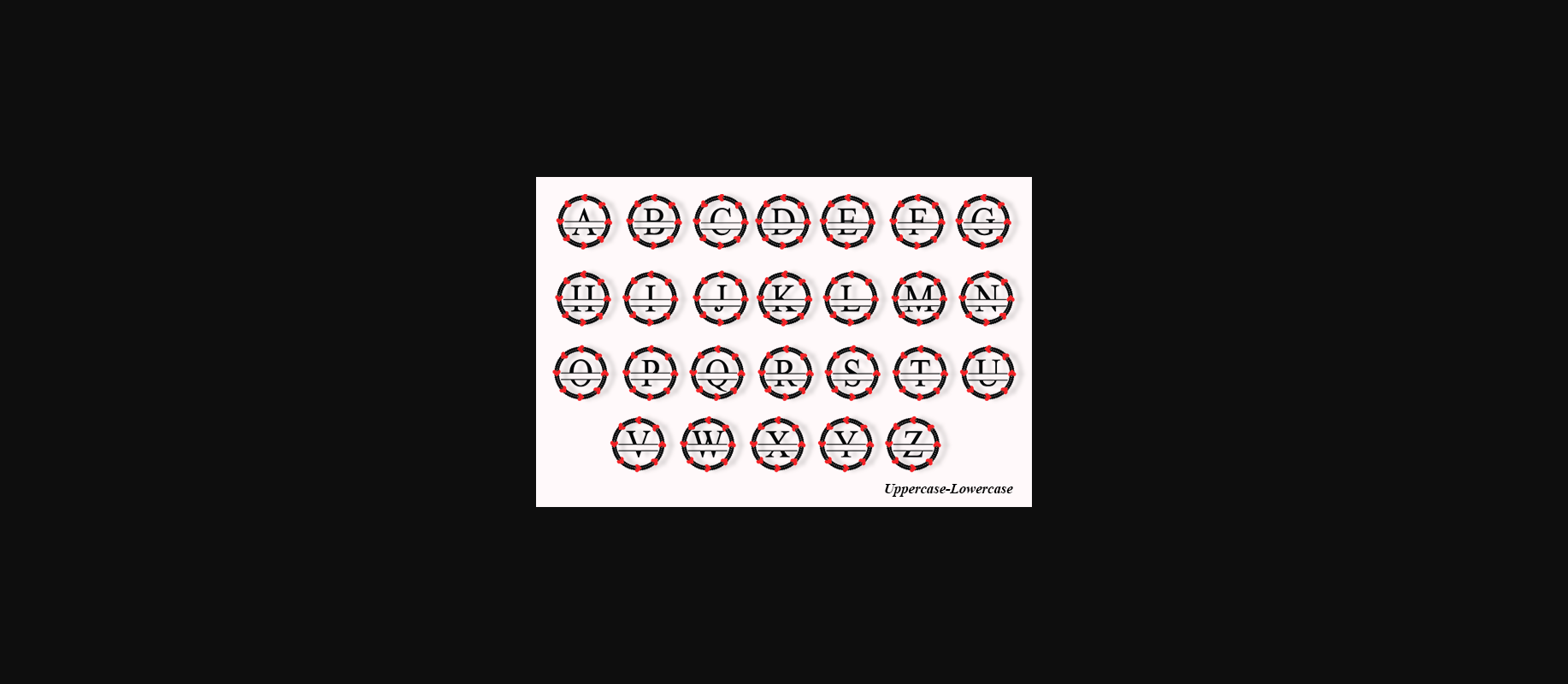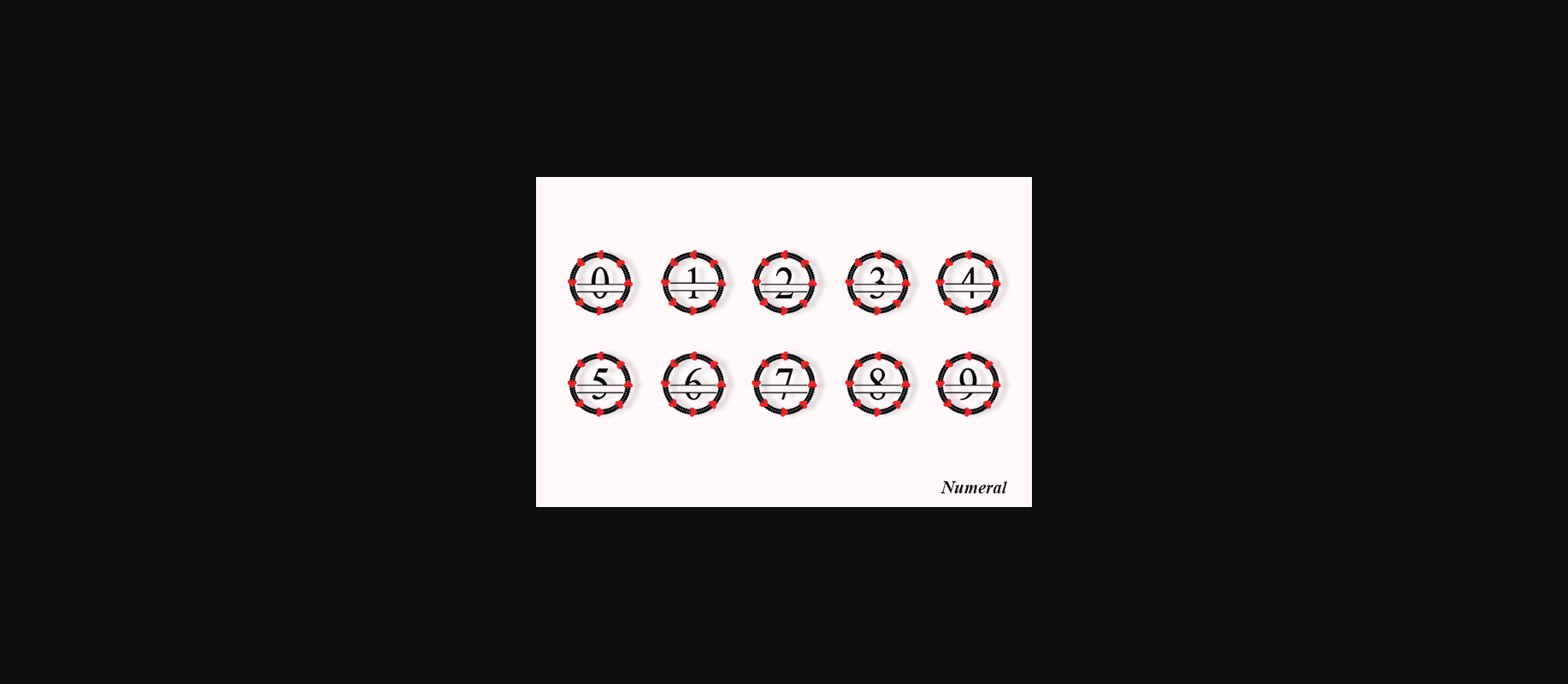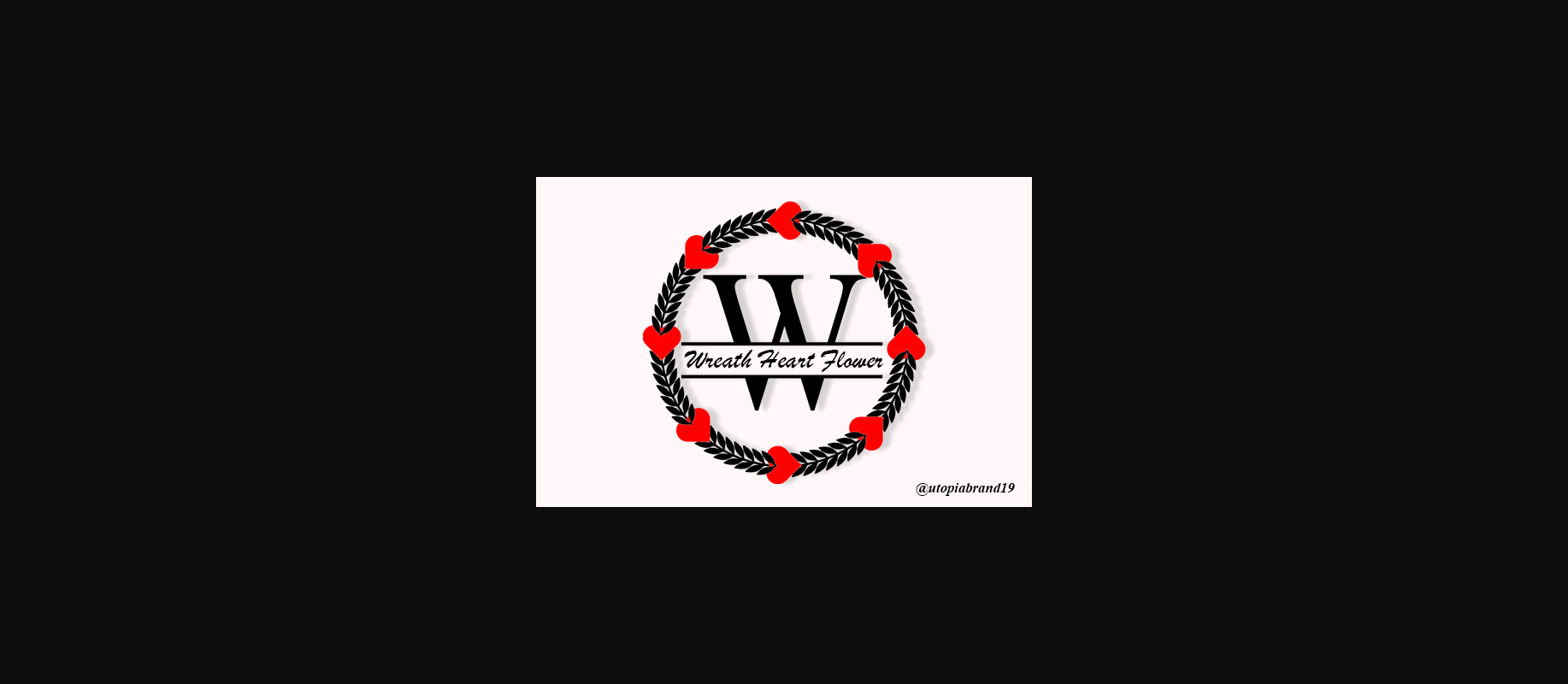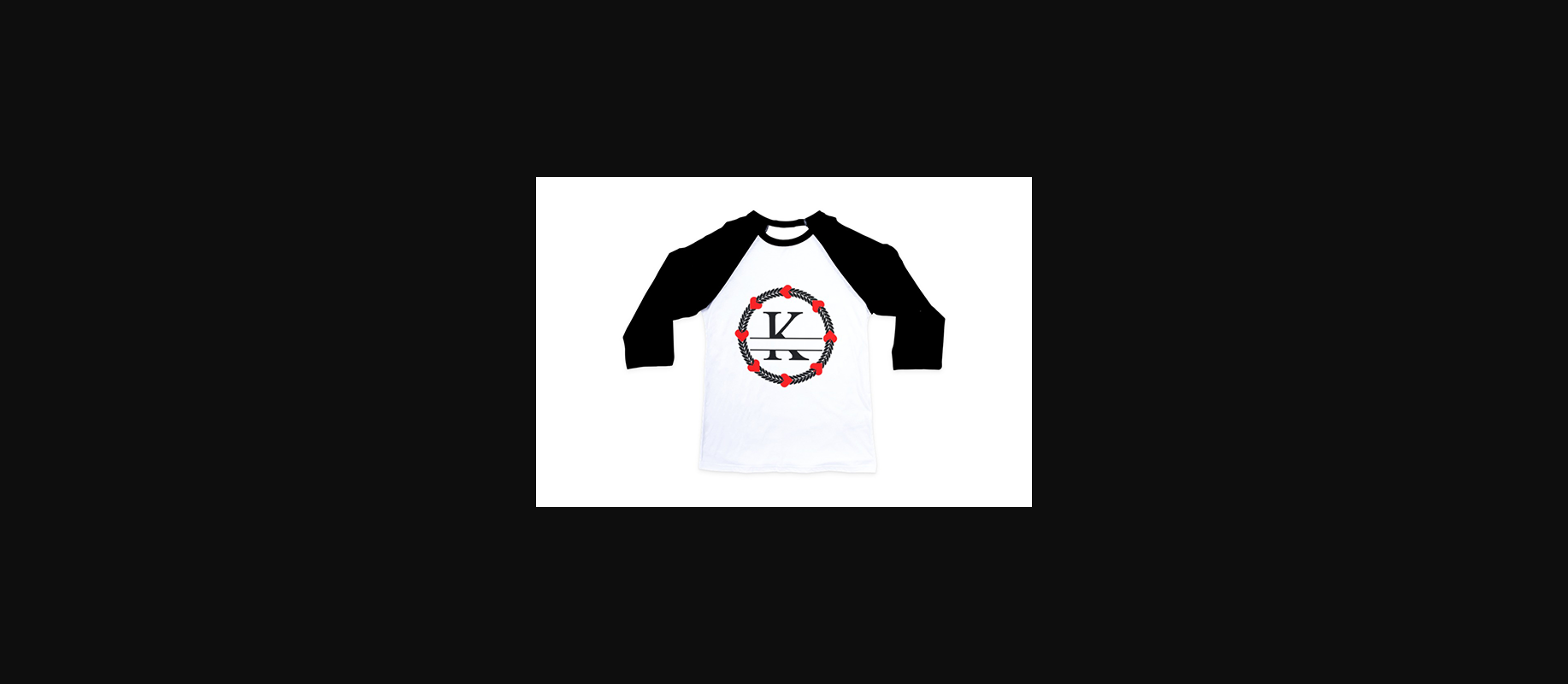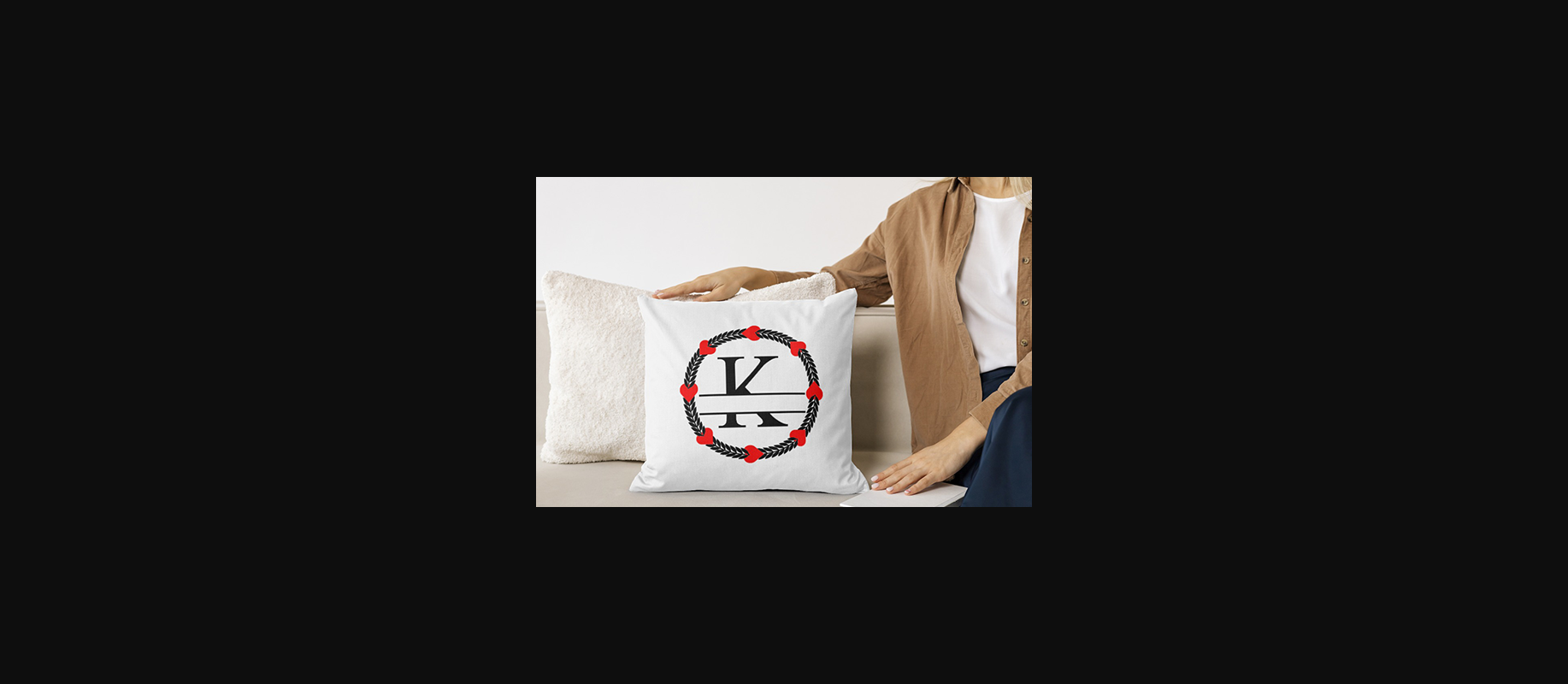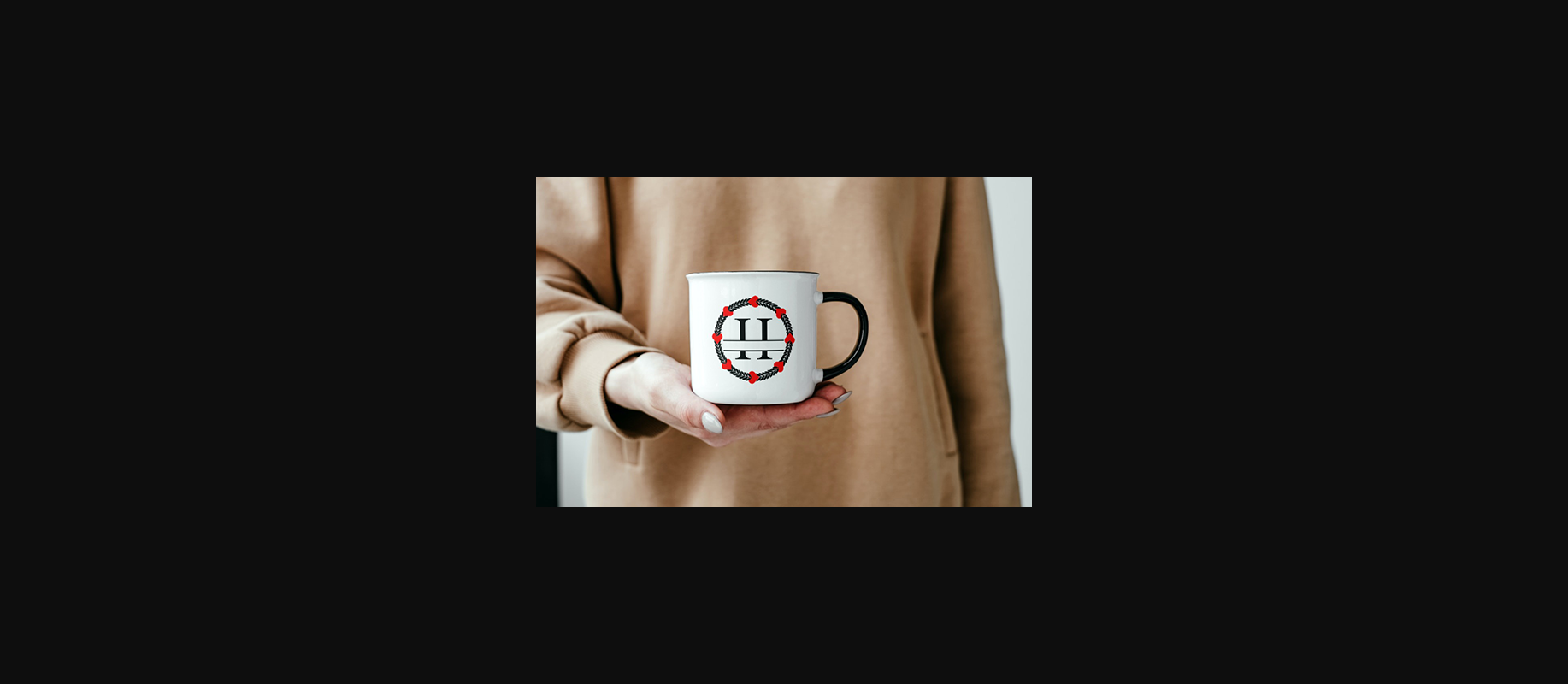
Wreath Heart Flower Font
About Wreath Heart Flower Font
Wreath Heart Flower Monogram is an elegant decorative font, featuring lovely ornaments. Fall in love with its authentic feel and use it to create gorgeous wedding invitations, beautiful stationary art, eye-catching social media posts, and cute greeting cards.